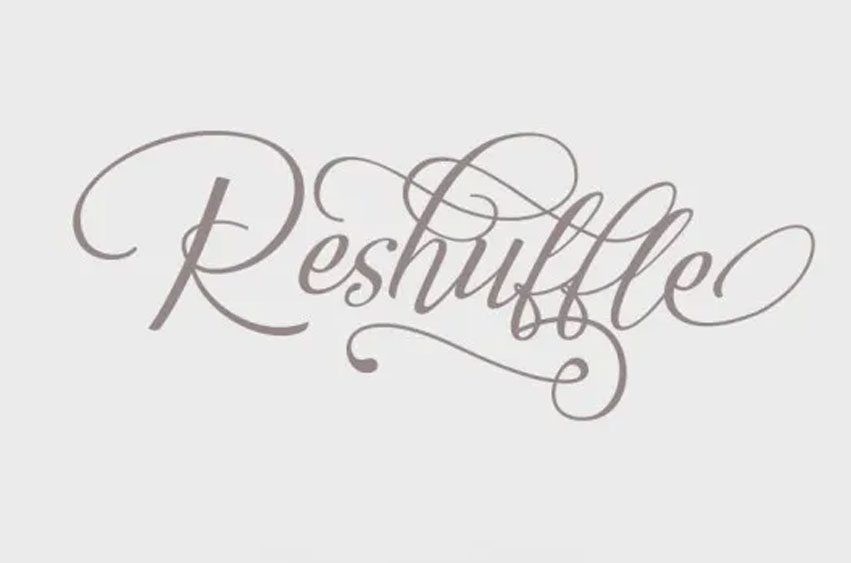
Reshuffle Font
Reshuffle Font Script Font created and brought to you by Dirtyline Studio. Reshuffle – the new fresh and modern script typeface inspired by a calligraphy, extra-decorative characters, and dancing baseline.
As pretty for invitations like standalone greeting cards, branding collateral, cards, motivational quotes, posters, and so on.